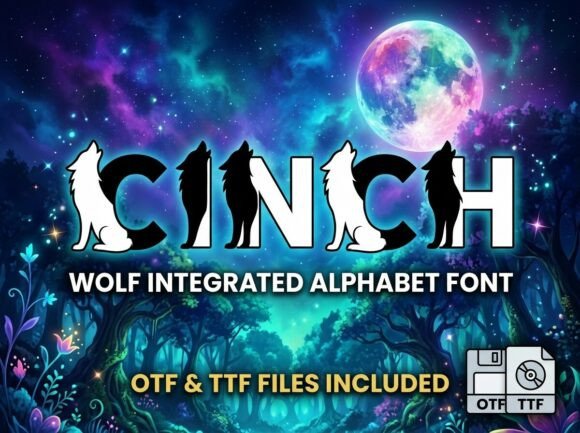
Unleash the Wild: Discover the Power of Cinch Font
Are you looking for a font that embodies the essence of the great outdoors? Do you want to capture the spirit of adventure and freedom in your designs? Look no further than Cinch, a majestic display typeface that answers the call of the wild. With its unique blend of rugged, blocky letterforms and hand-drawn “howling wolf” silhouettes, Cinch is the perfect choice for designers and crafters who want to make a statement.
The Inspiration Behind Cinch
Cinch is more than just a font – it’s an experience. Inspired by the “lone-wolf-and-lunar” soul, Cinch captures the essence of the wild and the beauty of the natural world. The font’s creator aimed to bridge the gap between wildlife illustration and modern thematic branding, resulting in a truly unique and captivating typeface.
What Makes Cinch Special?
So, what sets Cinch apart from other fonts? Here are just a few of its standout features:
- Massive, blocky letterforms: Cinch’s bold, structural weight gives it a commanding presence that’s perfect for headlines, titles, and social media headers.
- Hand-drawn “howling wolf” silhouettes: The rhythmic, hand-drawn silhouettes integrated into every character add a touch of whimsy and personality to the font.
- Seamless integration of negative and positive space: The way the silhouettes blend into the positive and negative space of each character creates a truly dynamic and engaging visual effect.
Perfect for Outdoor Adventure and Wildlife Conservation
Cinch is the premier choice for designers and crafters working on projects related to outdoor adventure and wildlife conservation. Its primal personality and majestic feel make it perfect for:
- Independent outdoor adventure identities: Use Cinch to create a bold and eye-catching logo for your outdoor gear brand or adventure travel company.
- Boutique wildlife conservation logos: Cinch’s unique blend of wild and modern elements makes it an excellent choice for wildlife conservation organizations and initiatives.
Fantasy and Social Media
But Cinch’s uses don’t stop there. Its high-impact, nocturnal-and-nature vibe also makes it perfect for:
- Fantasy novel titles: Add a touch of magic and mystery to your book covers with Cinch’s bold, evocative letterforms.
- Social media headers: Use Cinch to create eye-catching headers for your social media profiles and stand out from the crowd.
Tips for Using Cinch Effectively
To get the most out of Cinch, here are a few tips to keep in mind:
- Use it boldly: Cinch is a font that demands attention, so don’t be afraid to use it in large sizes and bold applications.
- Experiment with color: Cinch looks amazing in bold, bright colors, so don’t be afraid to get creative and try out different color schemes.
- Pair it wisely: Cinch is a strong font, but it can be paired with other fonts to create a more nuanced look. Try pairing it with a clean sans-serif font for a bold and modern contrast.
Cinch is a font that truly embodies the spirit of the wild. With its unique blend of rugged, blocky letterforms and hand-drawn “howling wolf” silhouettes, it’s the perfect choice for designers and crafters who want to make a statement. Whether you’re working on a outdoor adventure brand, a wildlife conservation project, or a fantasy novel, Cinch is the premier choice for adding a touch of magic and mystery to your designs.